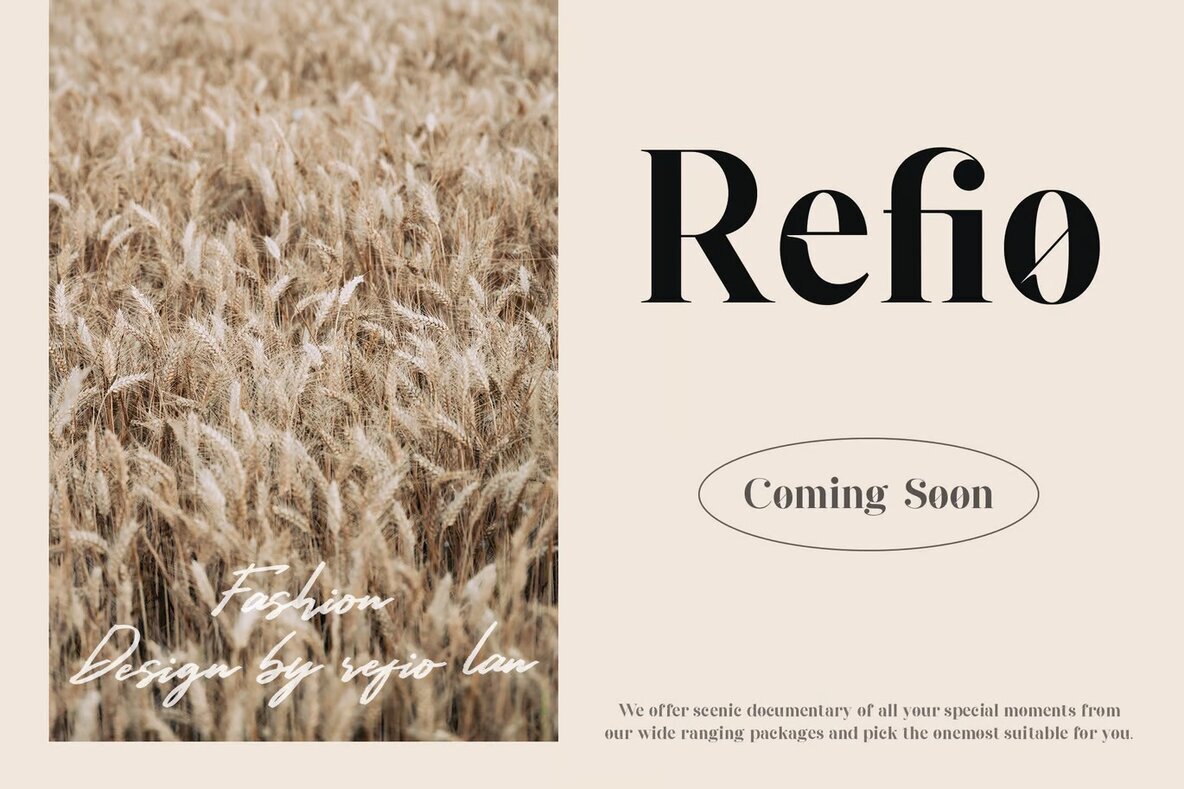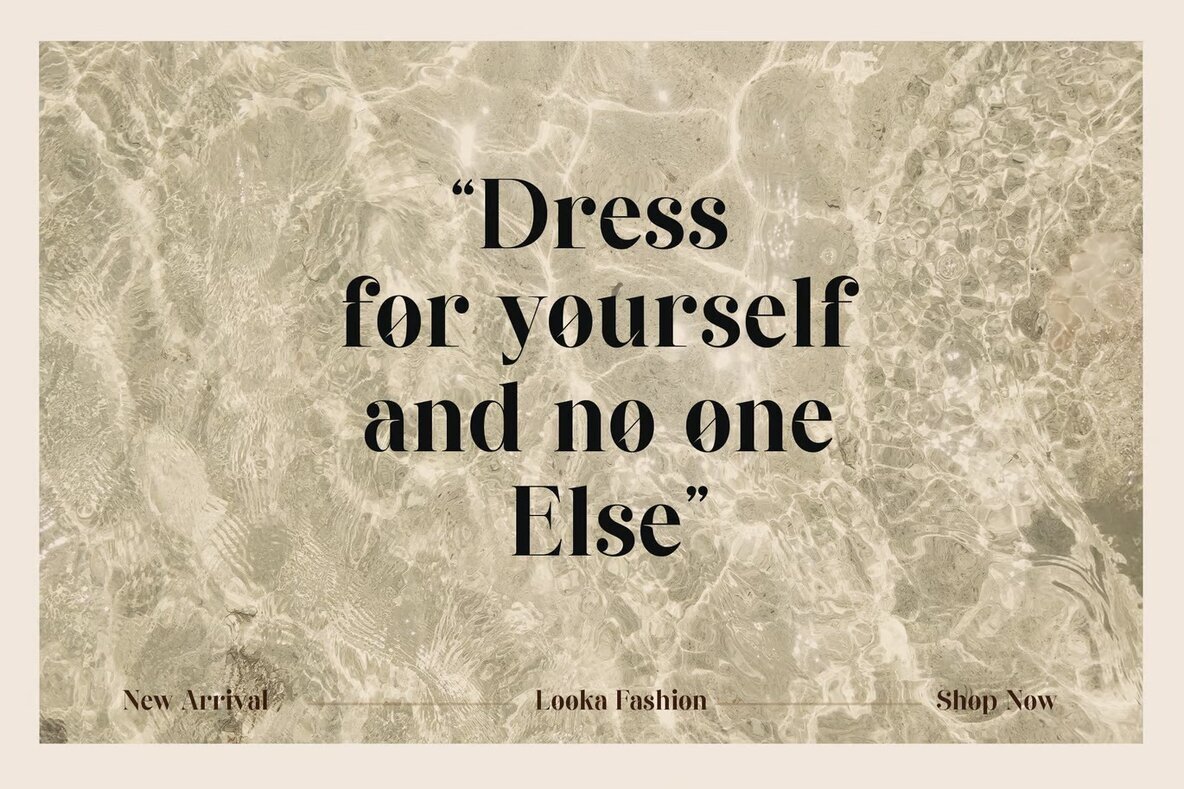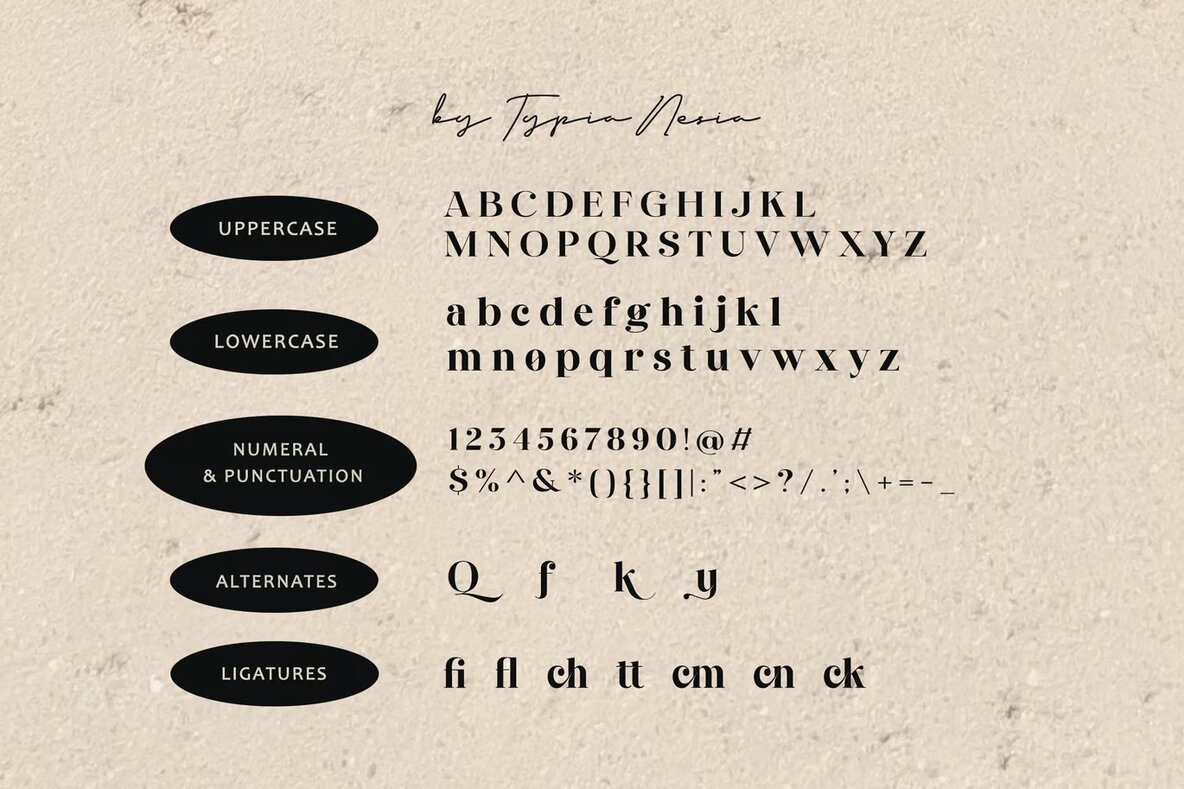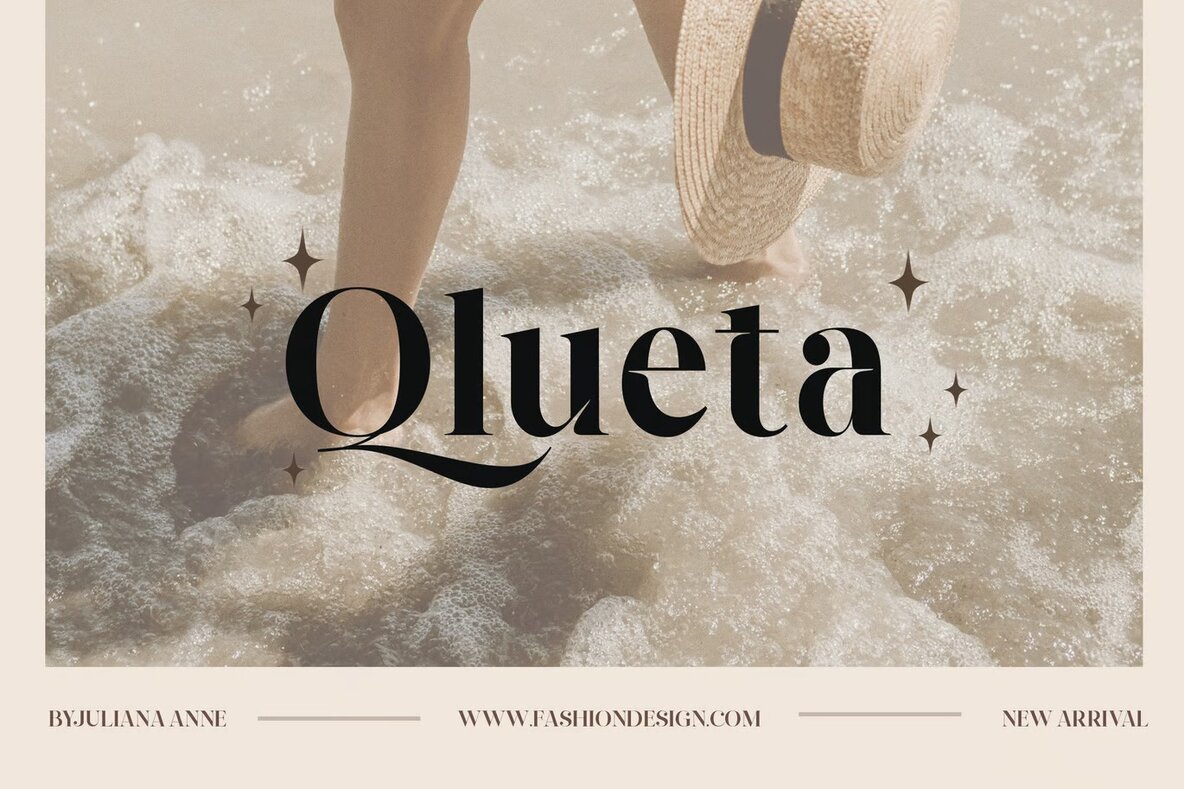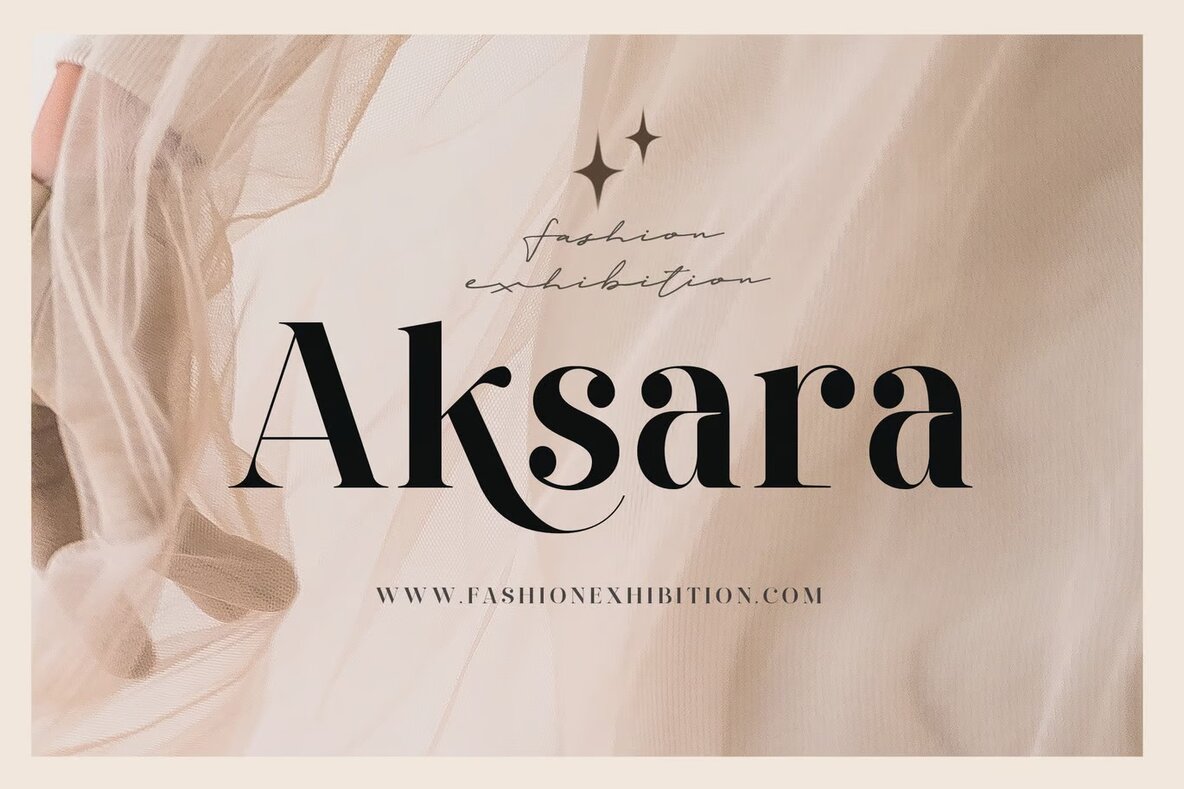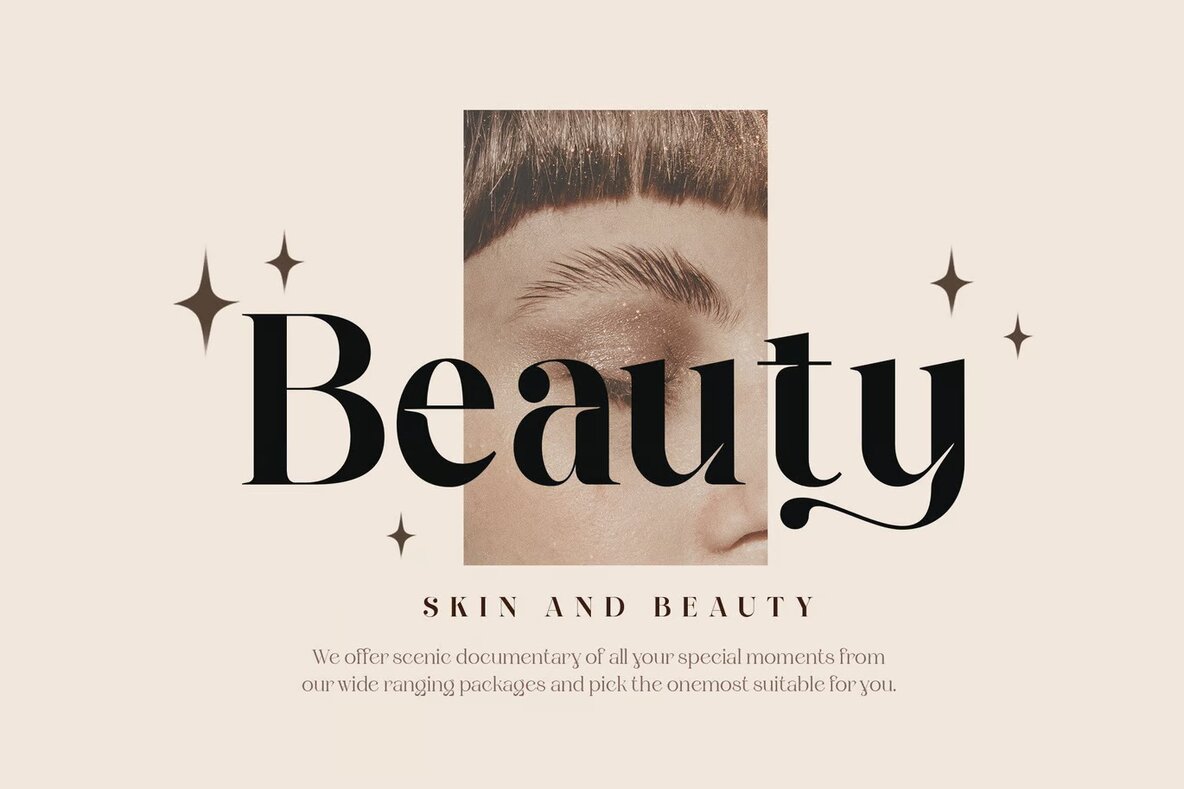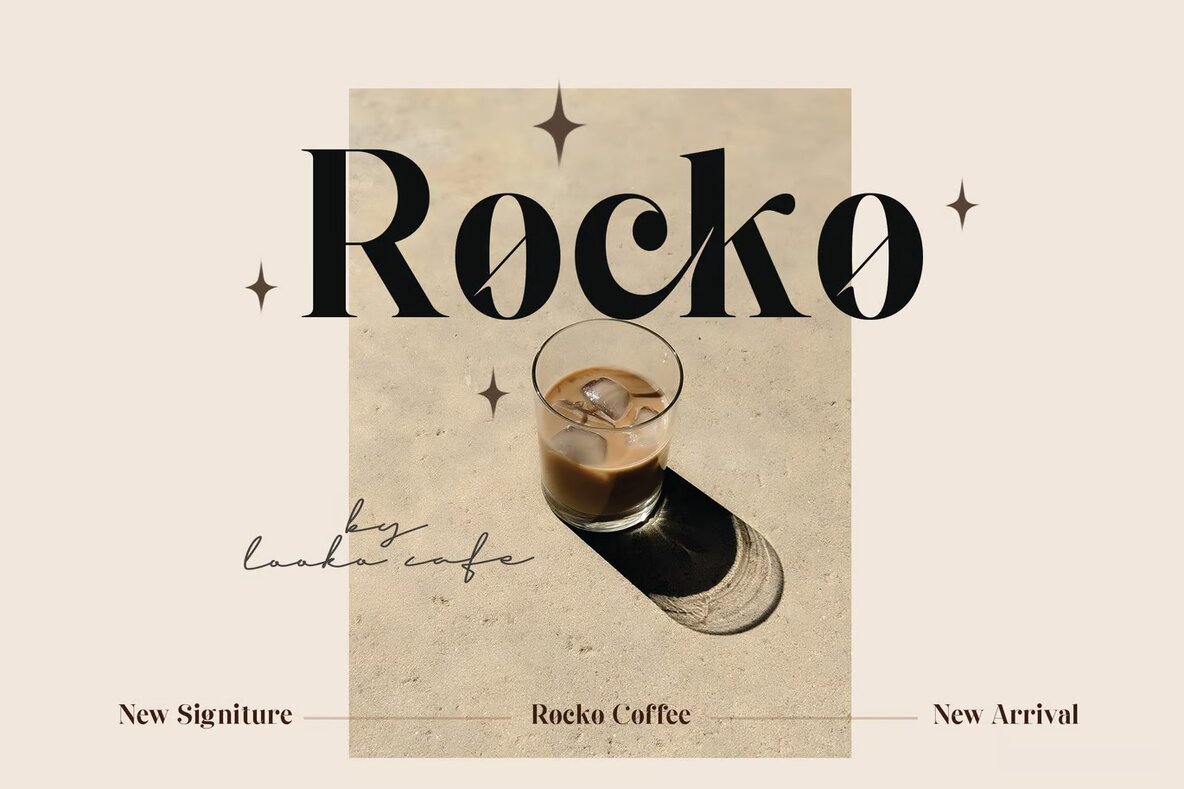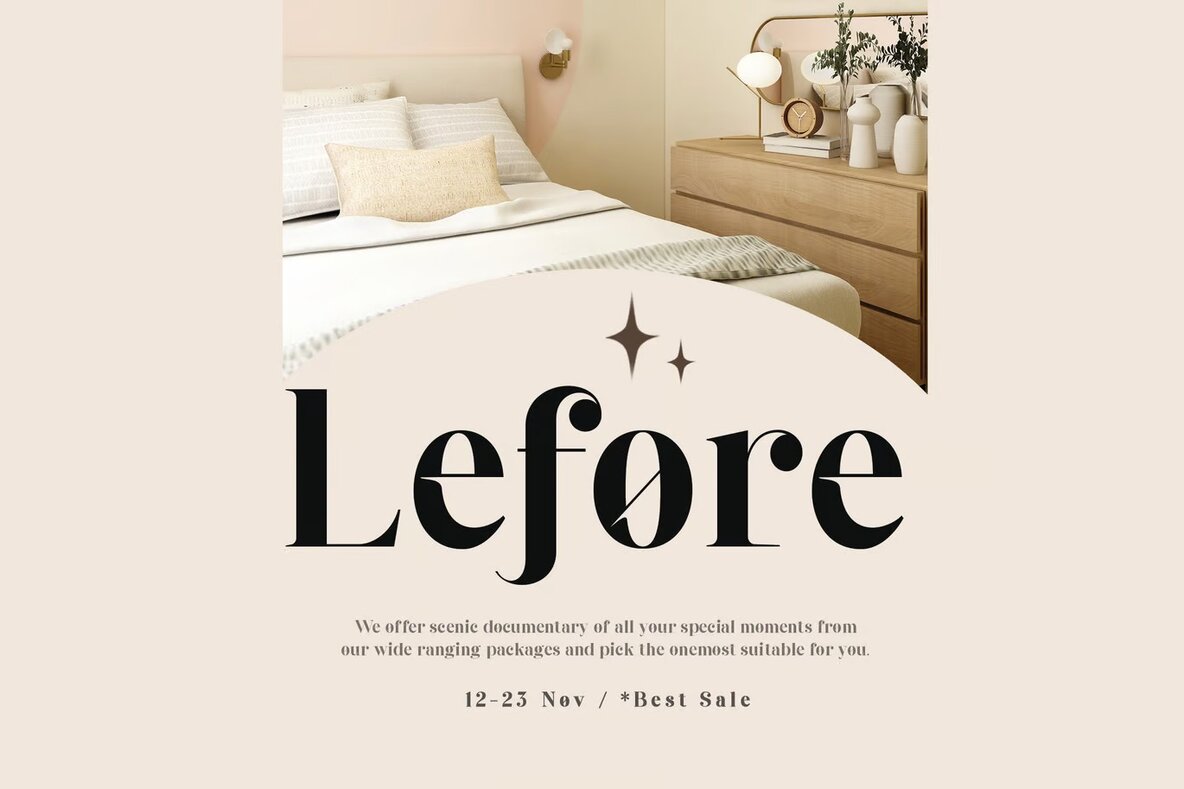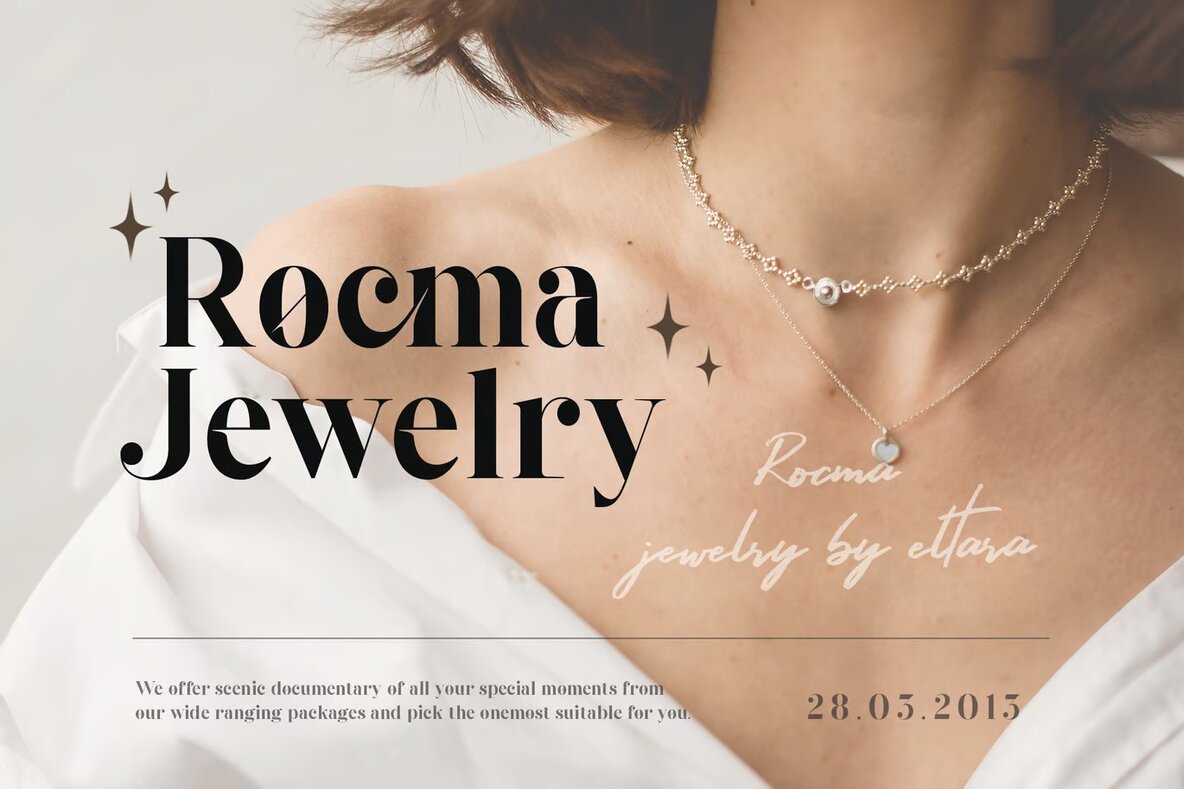
Quincher Font
Quincher Regular
Quincher is a modern serif font characterized by its expressive and elegant style, ideal for creating sophisticated typography designs. It includes alternates and ligatures, offering flexibility in crafting unique and beautiful text arrangements. This font is particularly well-suited for projects that demand a touch of luxury and class, such as logos, branding for fashion or cosmetics, and design work for art galleries or museums.
The aesthetic appeal of Quincher makes it a versatile choice for editorial designs in women's magazines, boutique branding, or modern advertising. It also integrates seamlessly into stationery, blog designs, and invitation cards. Its distinctive look can enhance home decor elements, book covers, and art quotes, making special events even more memorable. Whether for historical architecture themes or contemporary artistic expressions, Quincher provides a high-end finish to any creative project.